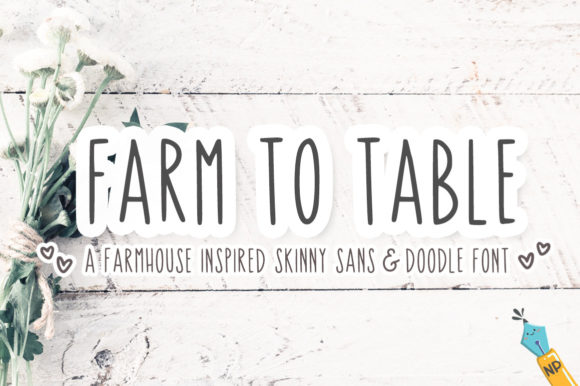
Introducing the Farm to Table Font, the perfect choice for all your farm-related creative endeavors! This sweet duo font, comprising of a sans serif and dingbats, is a must-have for anyone looking to add a touch of modern rusticity to their projects. Created by the talented Naughty Pen, this font is not just visually appealing, but also incredibly versatile, making it the best font for farm logos and beyond.
With Farm to Table Font, the possibilities are endless. Let your imagination run wild as you explore the various ways to incorporate this font into your crafts. Whether you're designing vinyl stickers, labels, t-shirts, or any other farm-themed merchandises, this font will effortlessly elevate your creations to a whole new level.
What sets Farm to Table Font apart from the rest is its ability to evoke emotions and create a sense of authenticity. Its charming and nostalgic appeal will instantly transport your audience to the heart of the countryside, evoking images of rolling green fields, fresh produce, and rustic charm. With just a few clicks, you can infuse your designs with the essence of farm-to-table goodness.
But it doesn't stop there. Our keyword-rich font is not just visually stunning; it is also designed to captivate your audience. Each character is meticulously crafted, ensuring that every letter, number, or symbol adds a distinctive touch to your designs. From its elegant curves to its playful dingbats, every element of this font tells a story and sparks curiosity.
Farm to Table Font is more than just a font; it's an experience. As you immerse yourself in the world of typography, you'll discover how this font effortlessly captures the essence of farm life. It's like having a piece of the countryside at your fingertips, ready to be transformed into captivating designs that will leave a lasting impression.
So why wait? Take your projects to new heights with the Farm to Table Font. Let its charm, versatility, and captivating appeal breathe life into your creations. Whether you're a seasoned designer or just starting out, this font will be your trusted companion on your creative journey. Explore the endless possibilities, and let your designs bloom with the essence of farm-fresh inspiration.